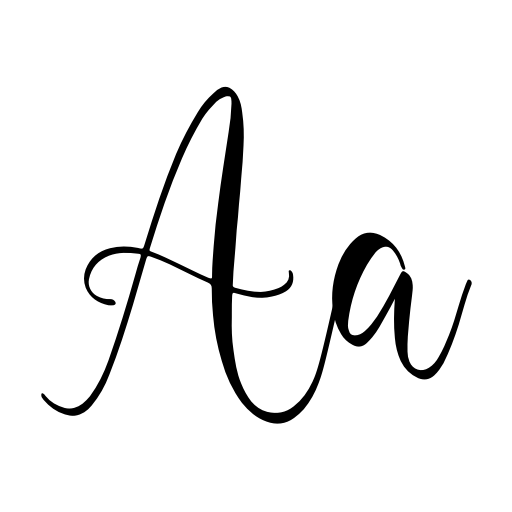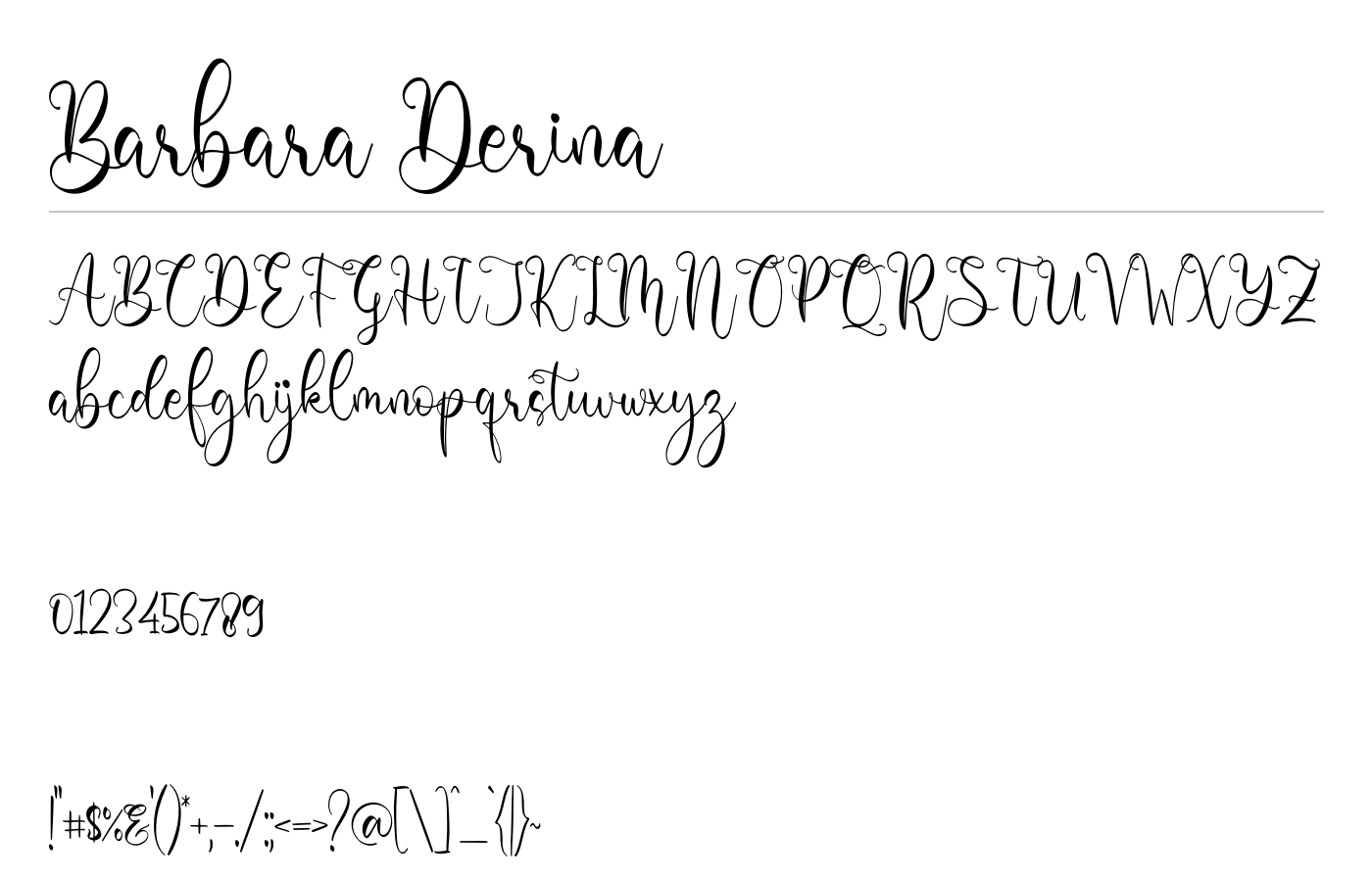
Barbara Derina is an elegant script font featuring delicate, flowing strokes with playful swashes and a handwritten charm. Its slender, slightly condensed letterforms and graceful curves make it perfect for invitations, branding, and any design that seeks a sophisticated yet approachable feel. This font shines best in headlines, logos, and decorative text where its intricate style can truly stand out.
Barbara Derina Font
About Barbara Derina Font